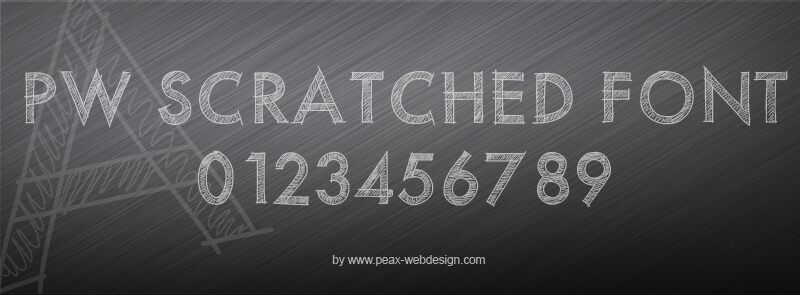
PW Scratched font by Peax Webdesign is a free eroded techno display font with tall, outlined capitals and the roughness of an unfinished drafting sketch. Fine diagonal hatching runs inside the letters, and stray construction lines extend beyond many edges, giving the otherwise orderly shapes a restless handmade surface.
For music posters and game title screens, the lettering offers a wiry industrial look that feels both technical and deliberately raw. It also belongs on streetwear graphics and experimental magazine covers, where the repeated pencil-like scratches can become part of a larger scheme of diagrams, crosshatching, and rough illustration.